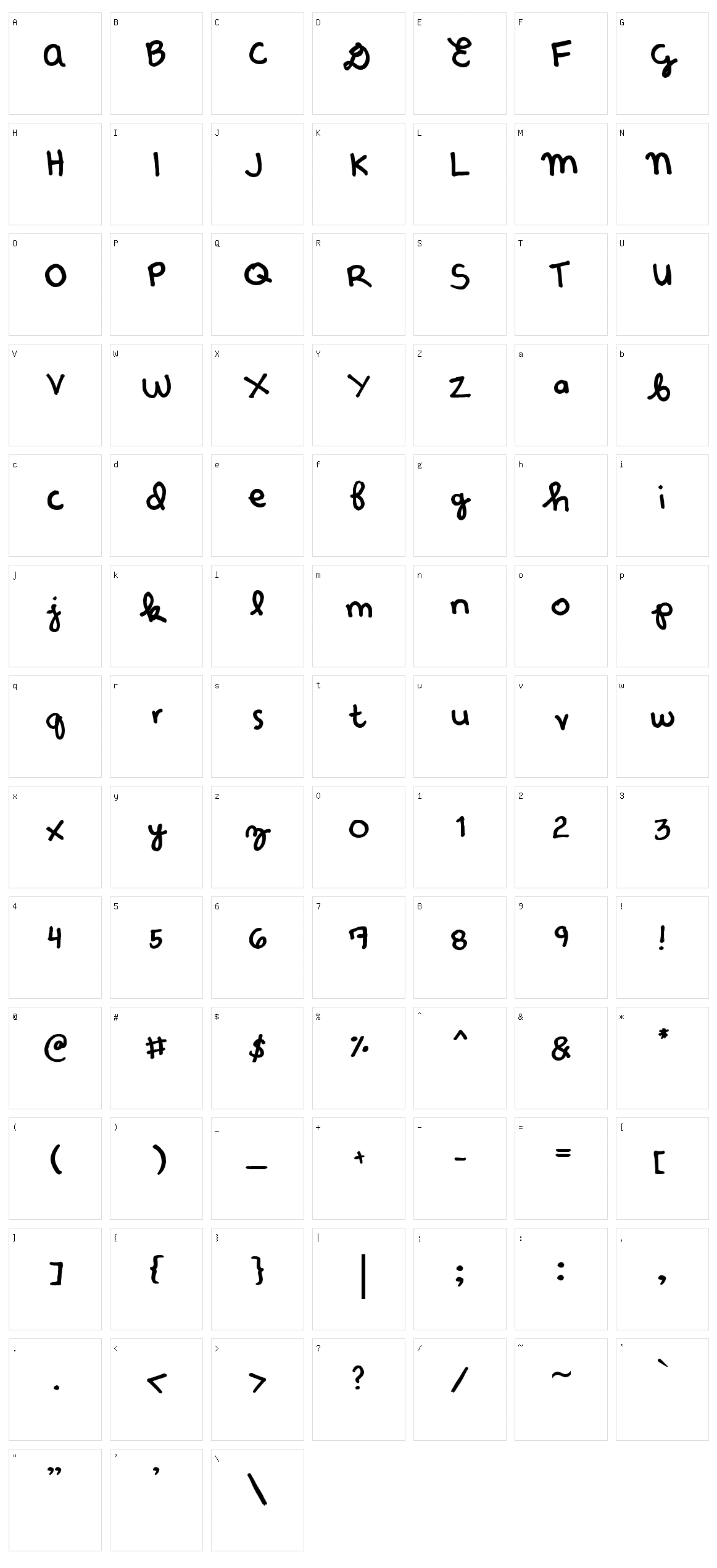
The free font Denne Etude is carefully designed by Denne, showcasing a thoughtful balance of creativity and usability and falls under the School font style. When you download the ZIP file, it contains only 592.56 KB of font files, making it lightweight and quick to download. Please review the license details below to understand permitted usage and distribution rights. If license information is not available, we recommend using this font for personal projects only or contacting the author directly for commercial usage permissions.